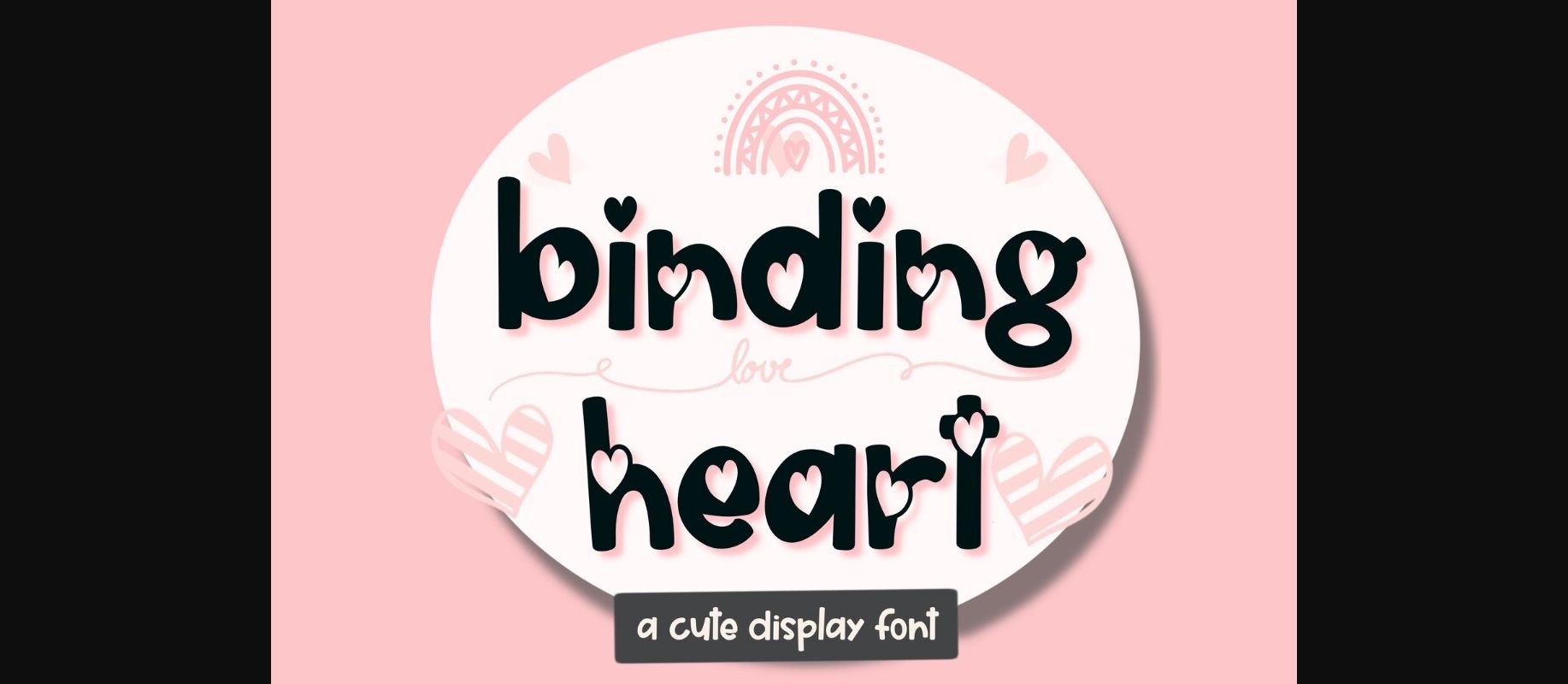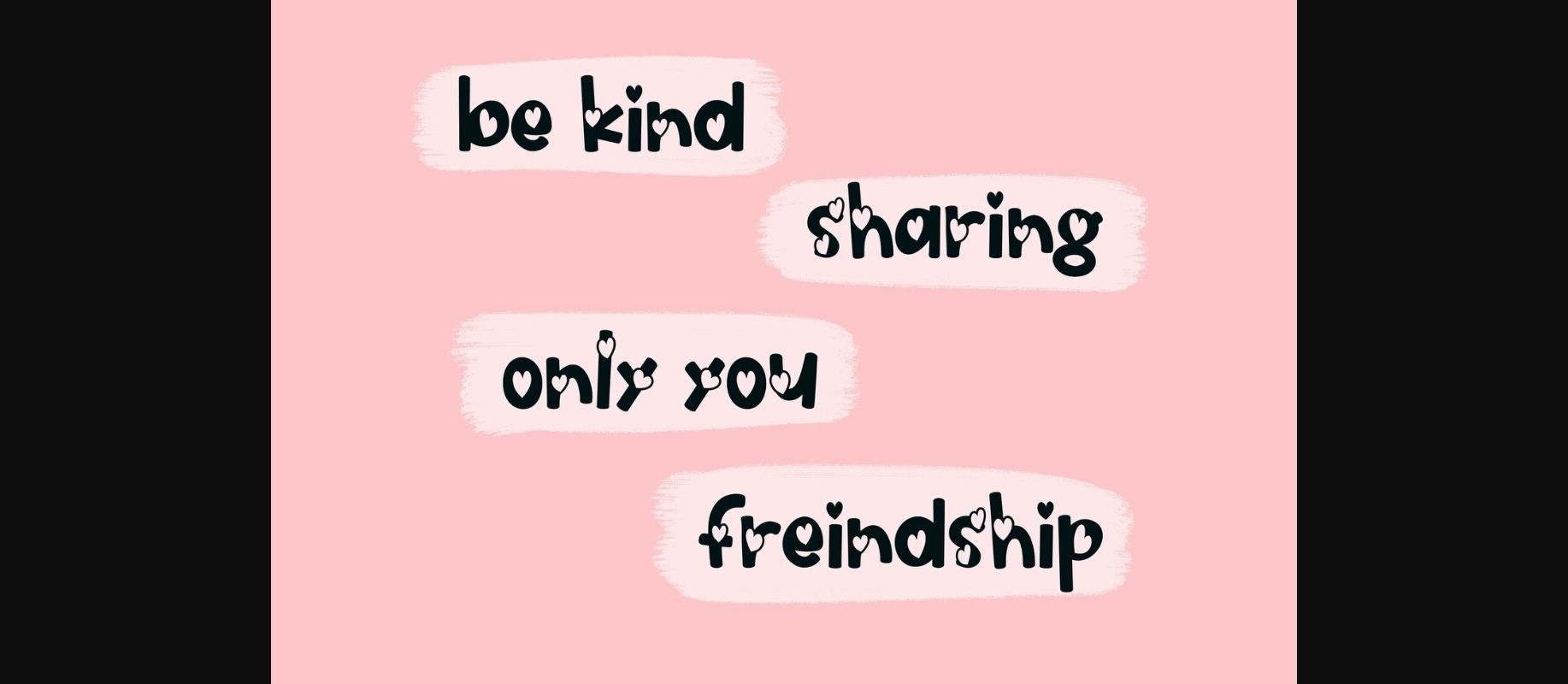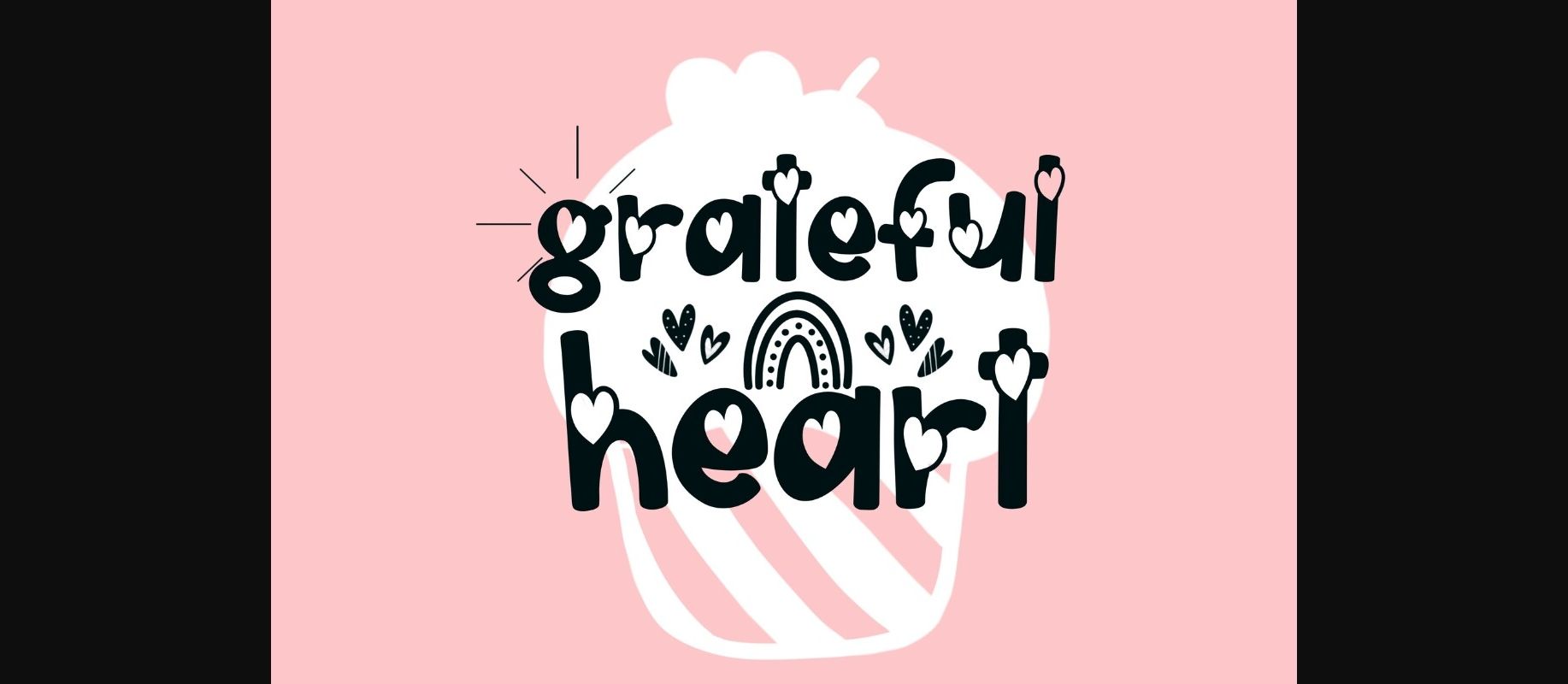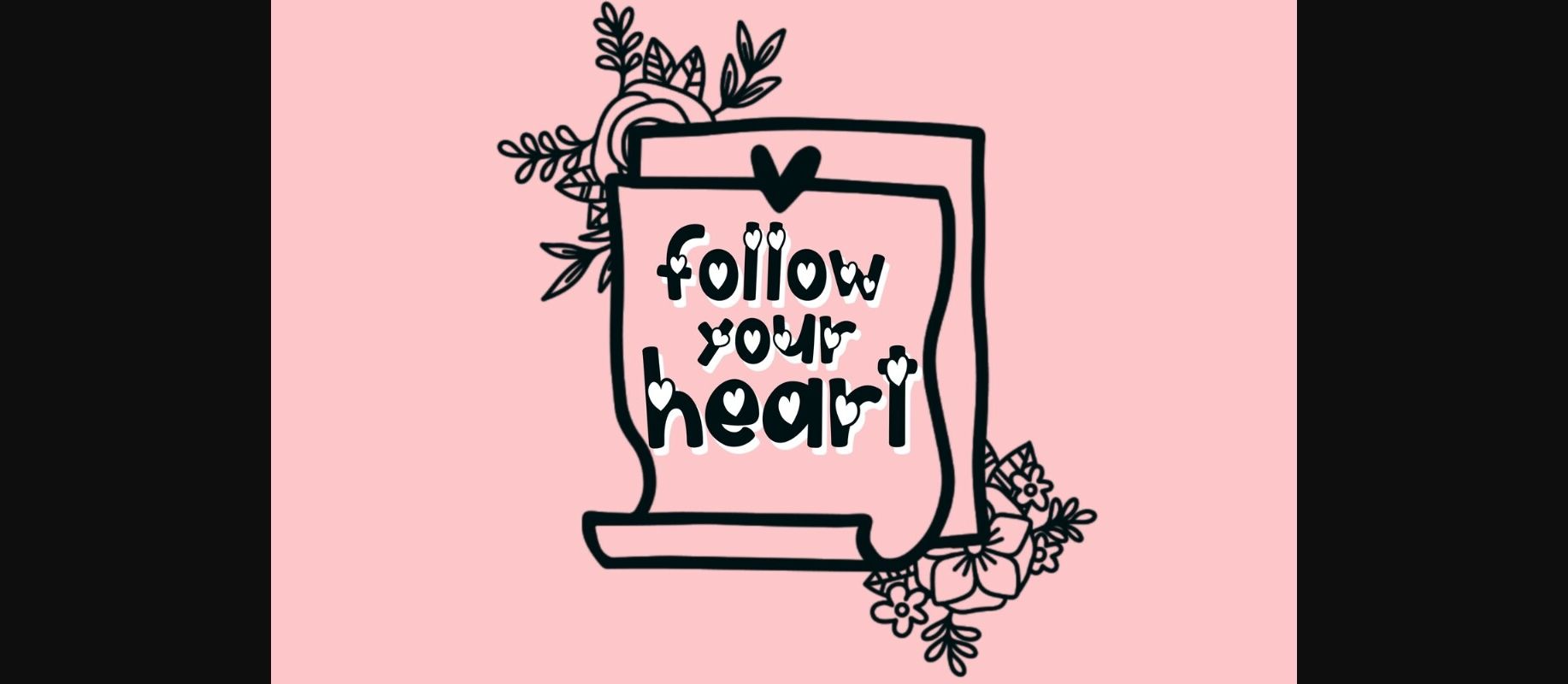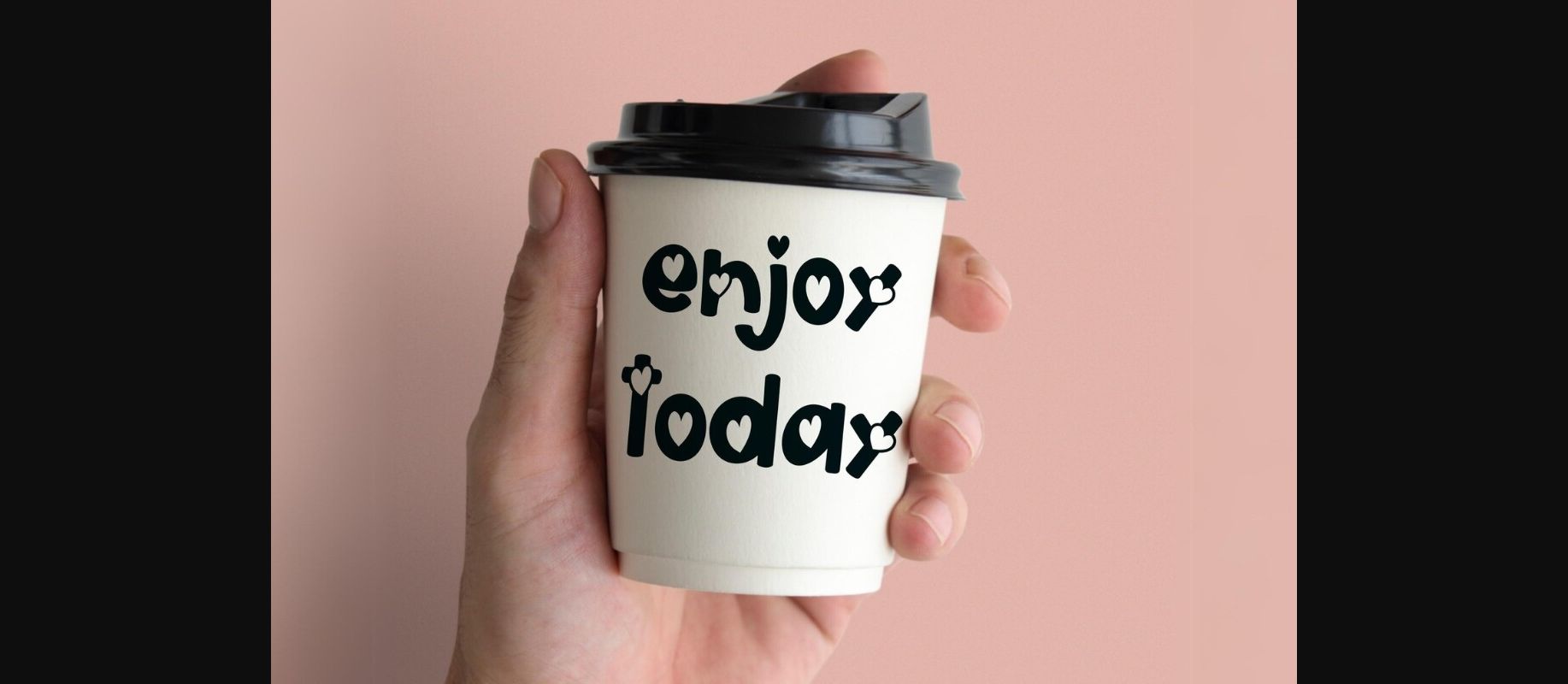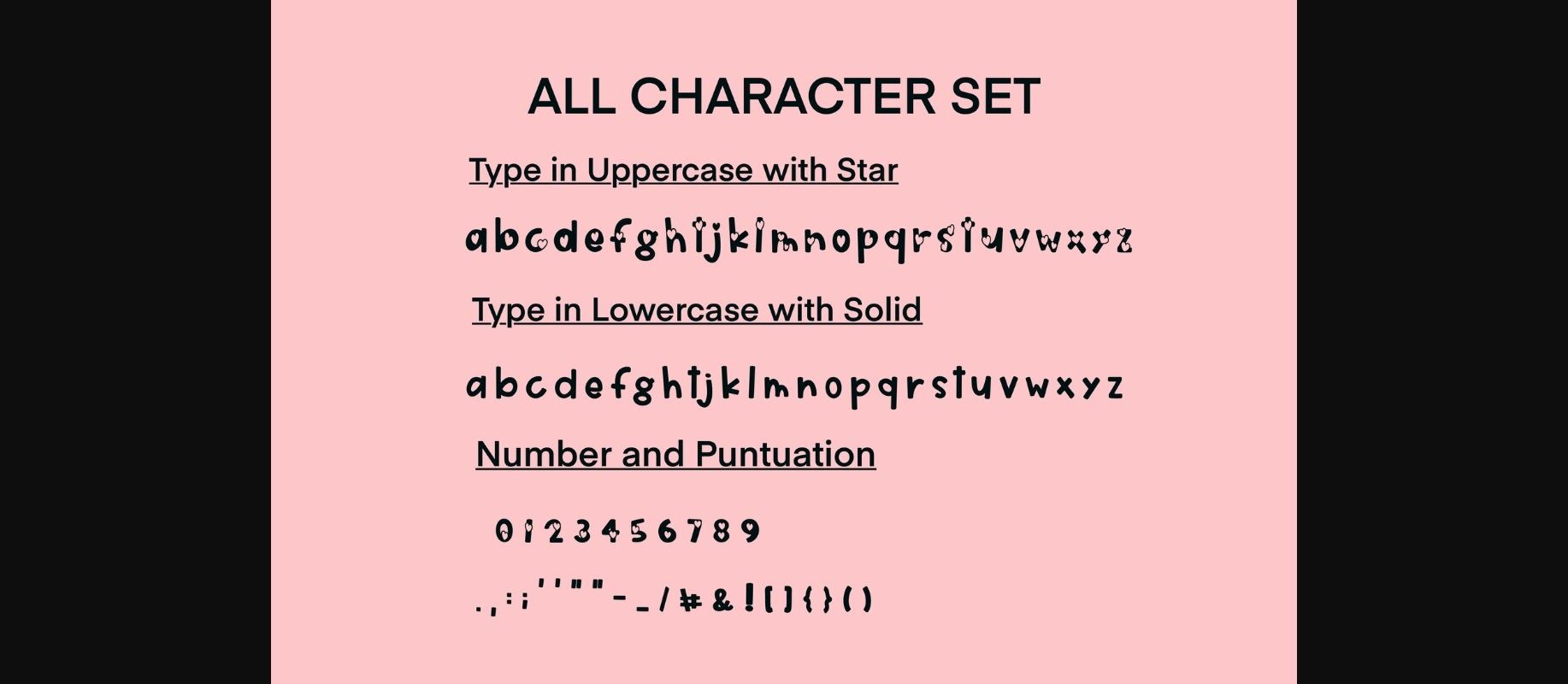
Binding Heart Font
About Binding Heart Font
Binding Heart Font is a cute decorative font that uses bold letters adorned with lovely, sweet mini hearts. Perfect for creating a wide variety of designs such as banners, social media posts, cards, content, mugs, t-shirt designs, stationery, bags, hats, pillows, and more.Masterfully designed to become a true favorite, this font has the potential to bring each of your creative ideas to the highest level!